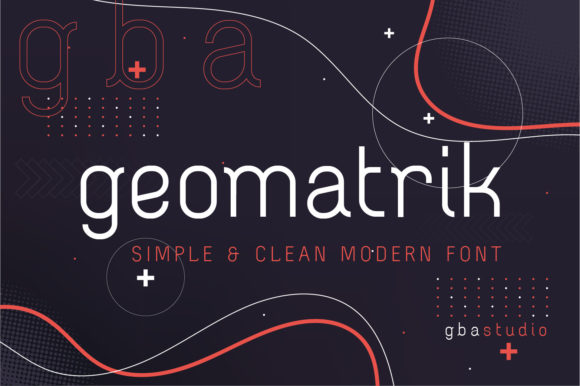
Introducing Geomatrik, the perfect font for modern websites! Created by gbastudio, this elegant and modern sans serif font is perfect for designers looking to elevate their designs to the next level.
Geomatrik's minimalist and clean vibe is perfect for a wide range of projects. Whether you're designing book covers, magazines, social media posts, invitations, or anything in between, Geomatrik is the font you need to make your designs stand out.
This versatile font family is easy to read, making it perfect for both digital and print designs. Its simple, yet sophisticated design is sure to capture the attention of your audience and leave a lasting impression.
With Geomatrik, you can take your designs to new heights. Its sleek and stylish design will add a touch of elegance to any project, making it the perfect choice for designers who want to create something truly exceptional.